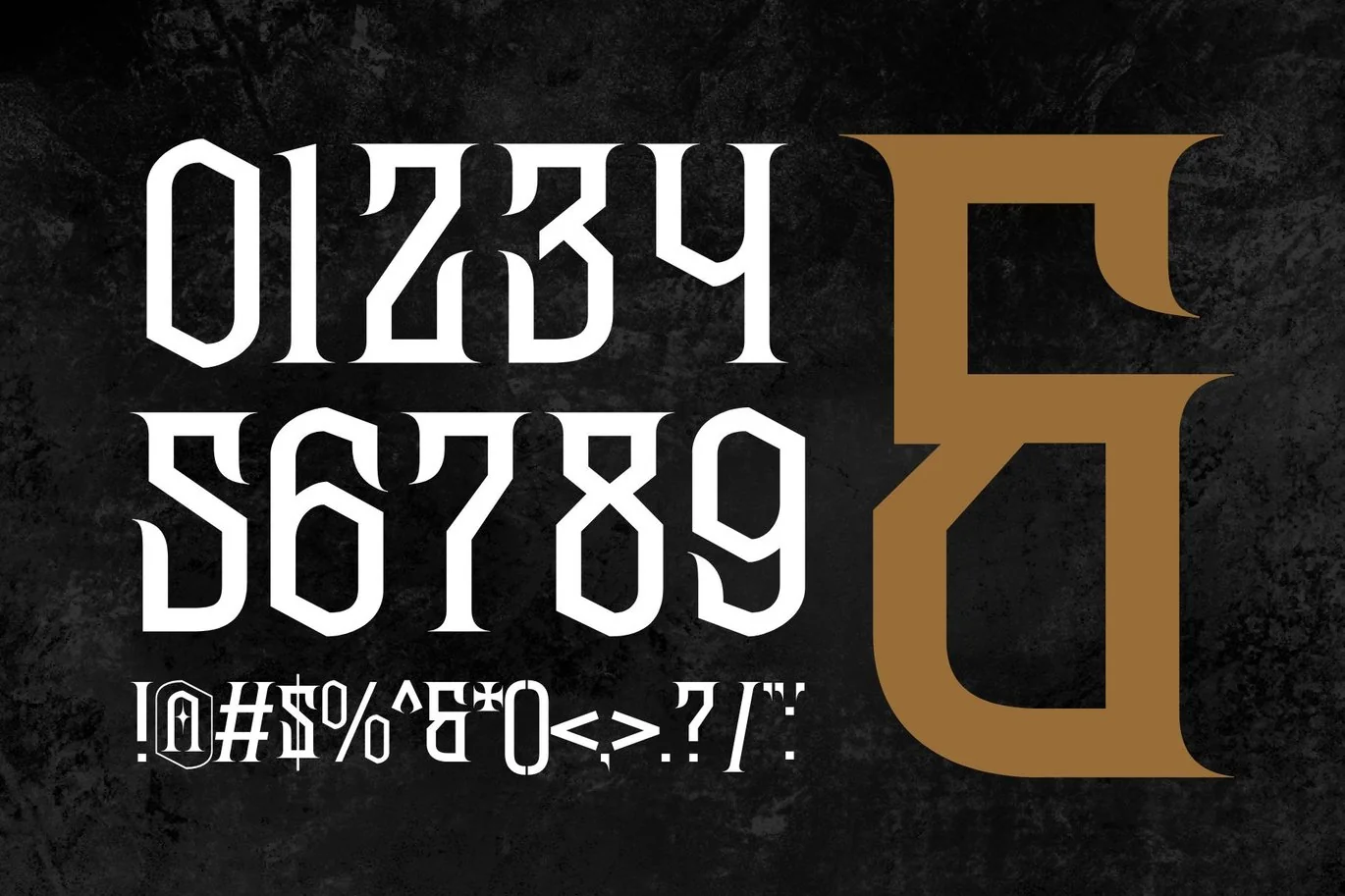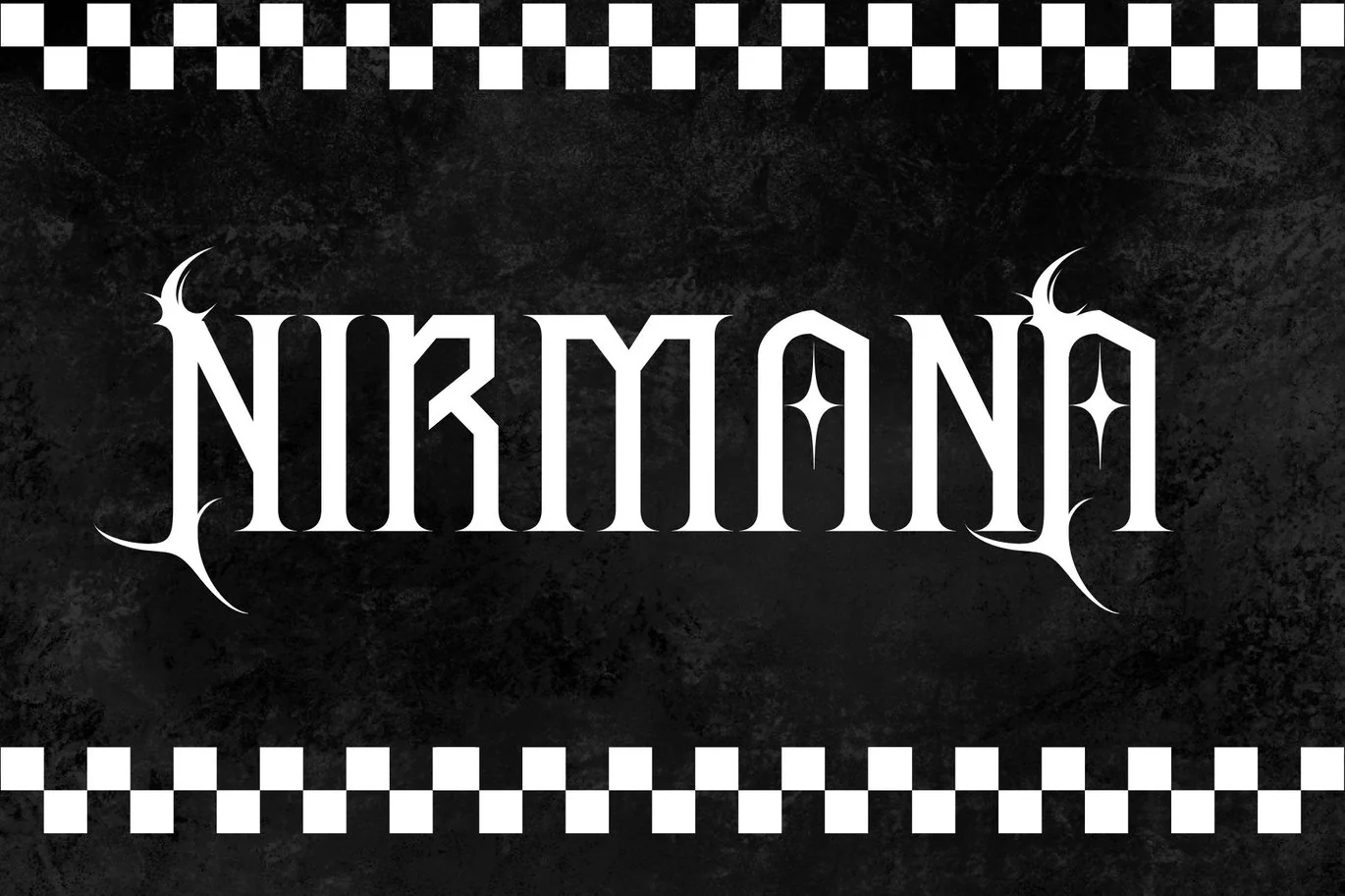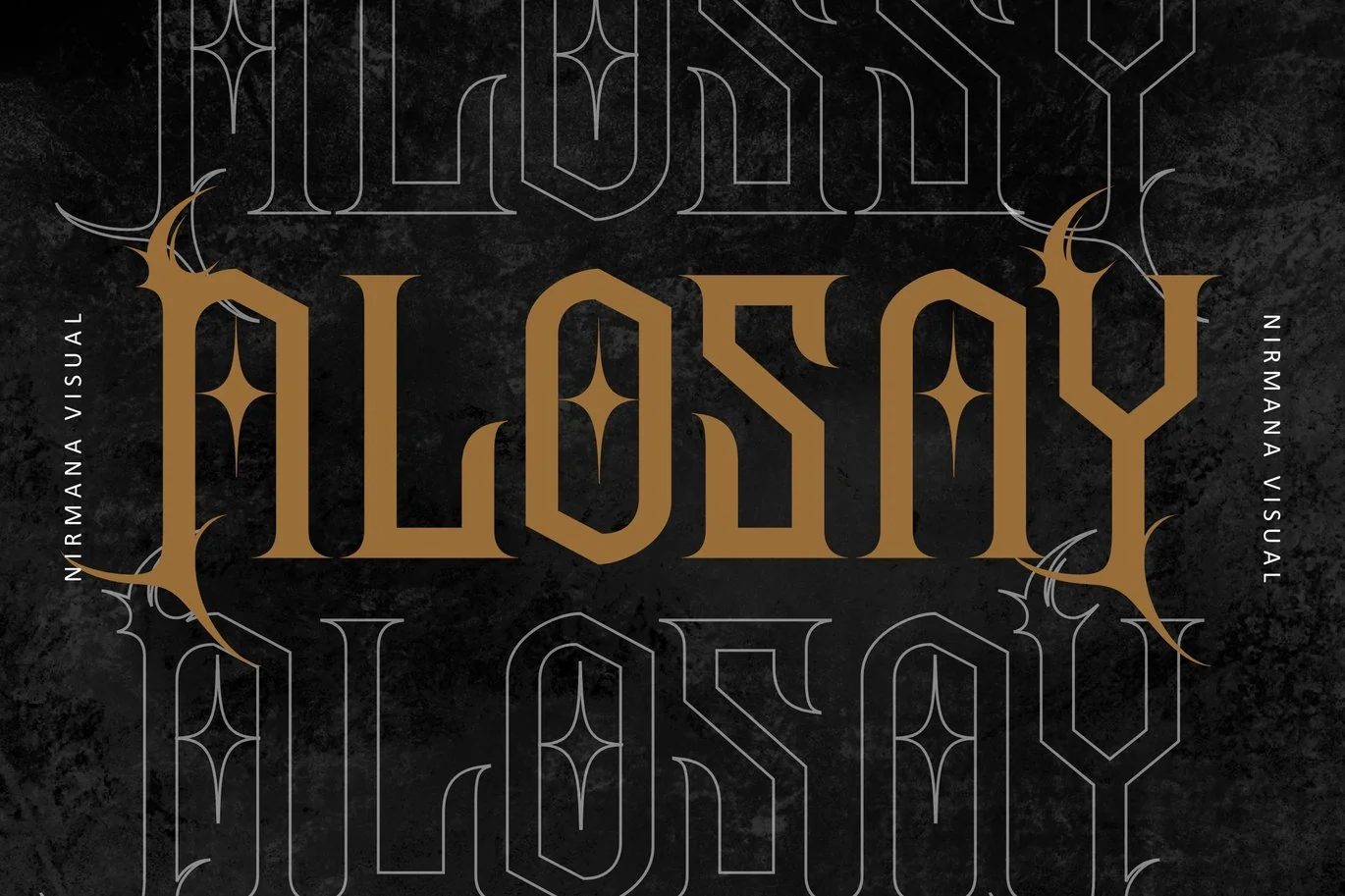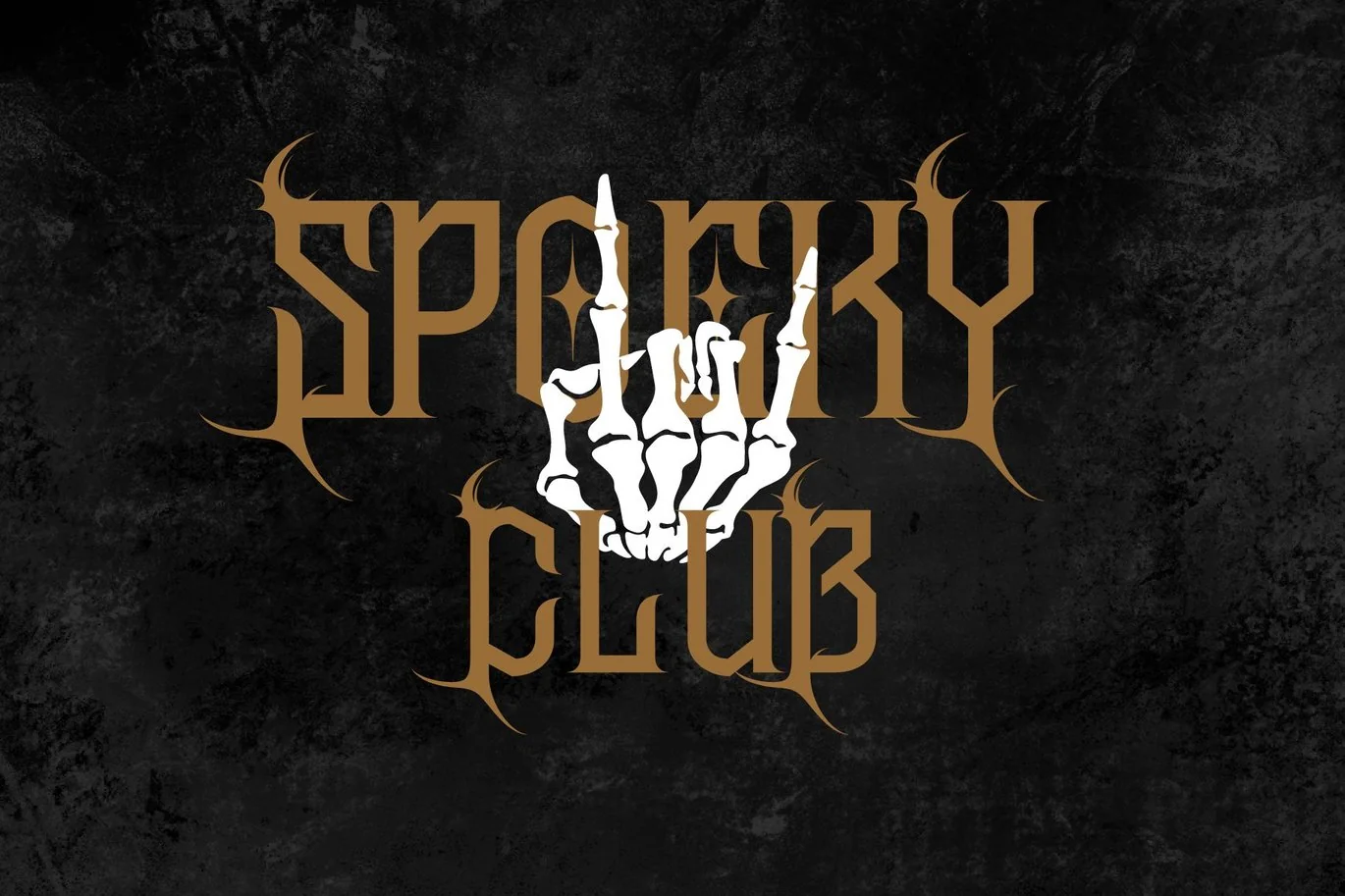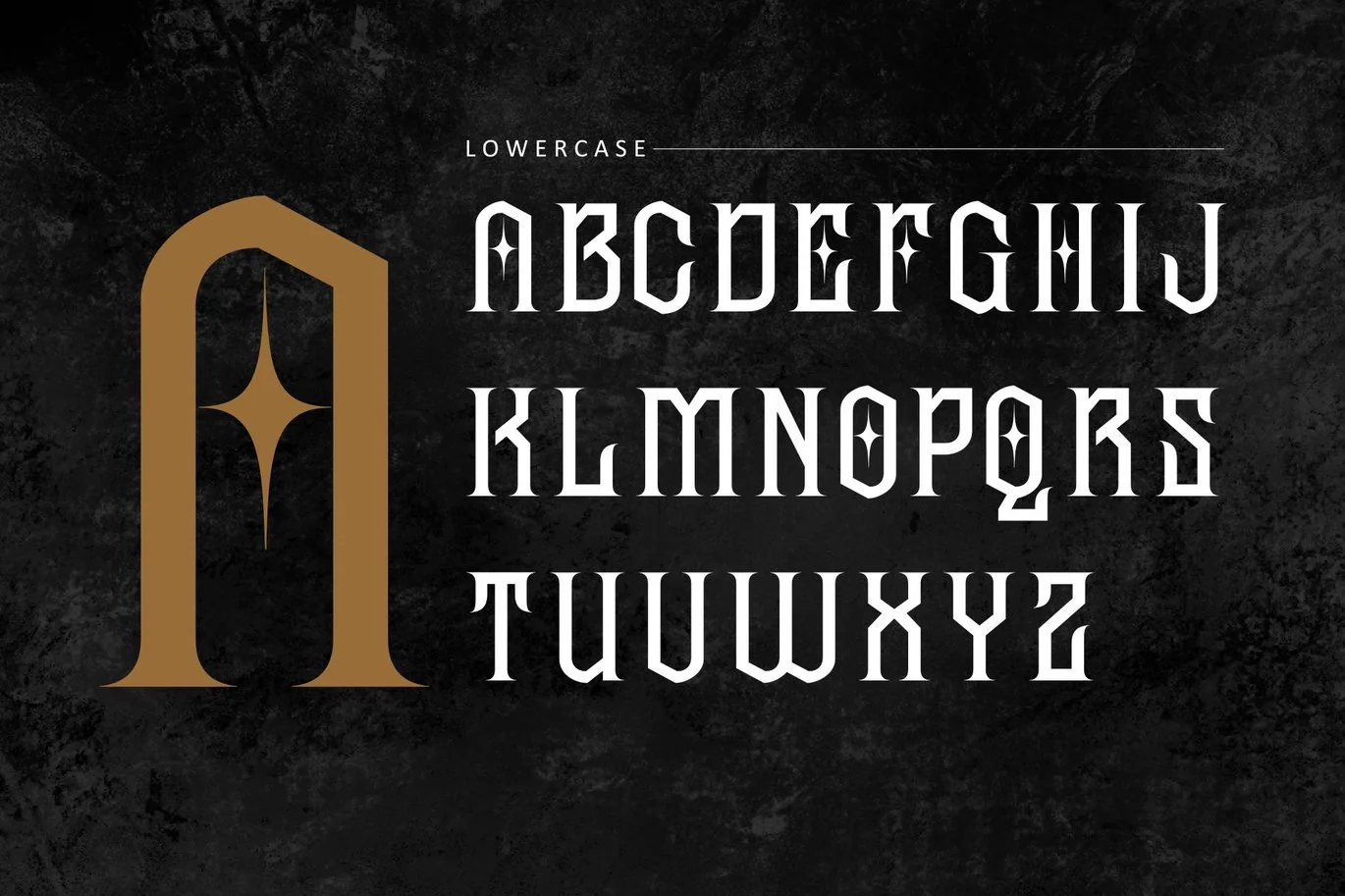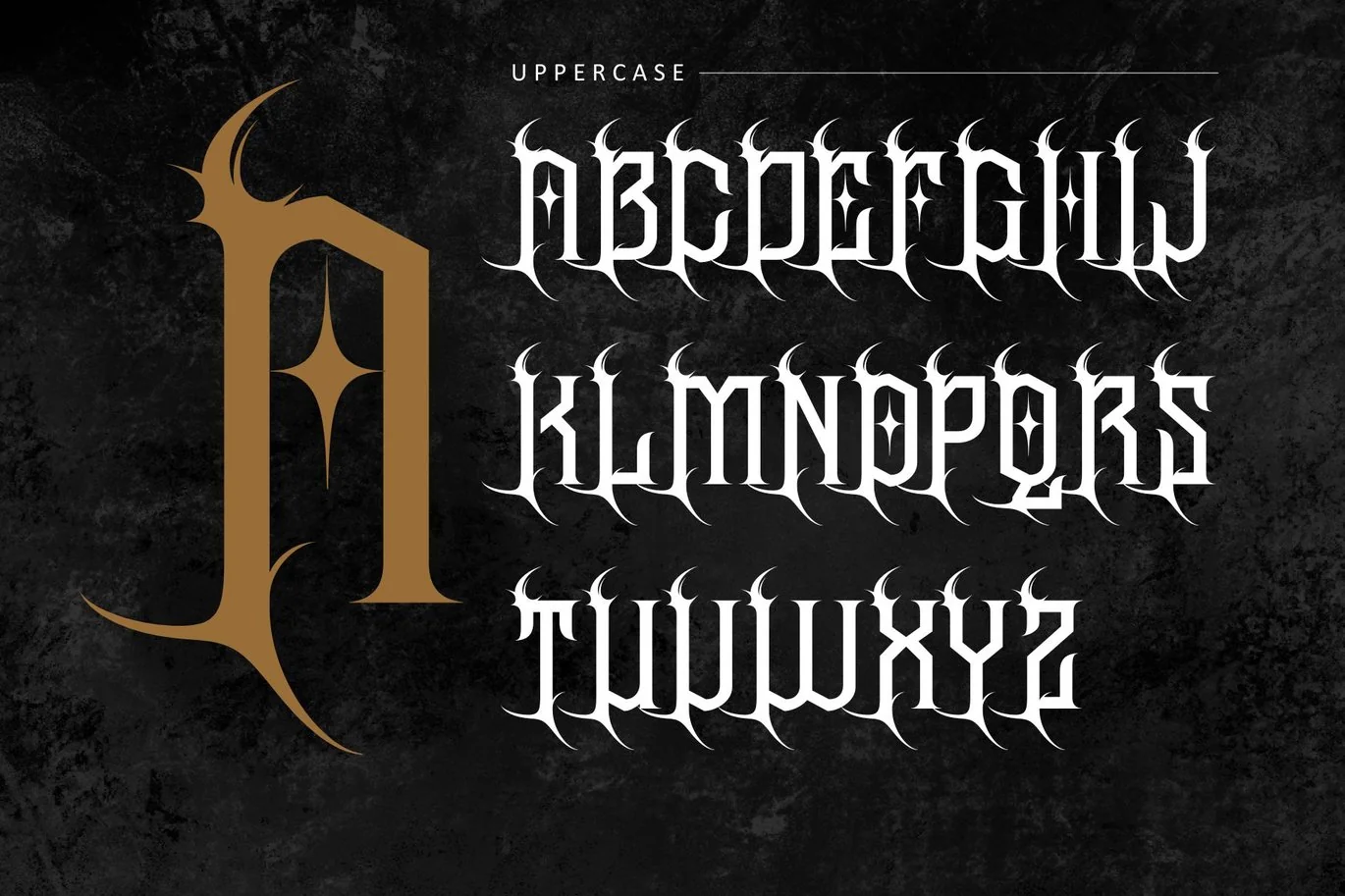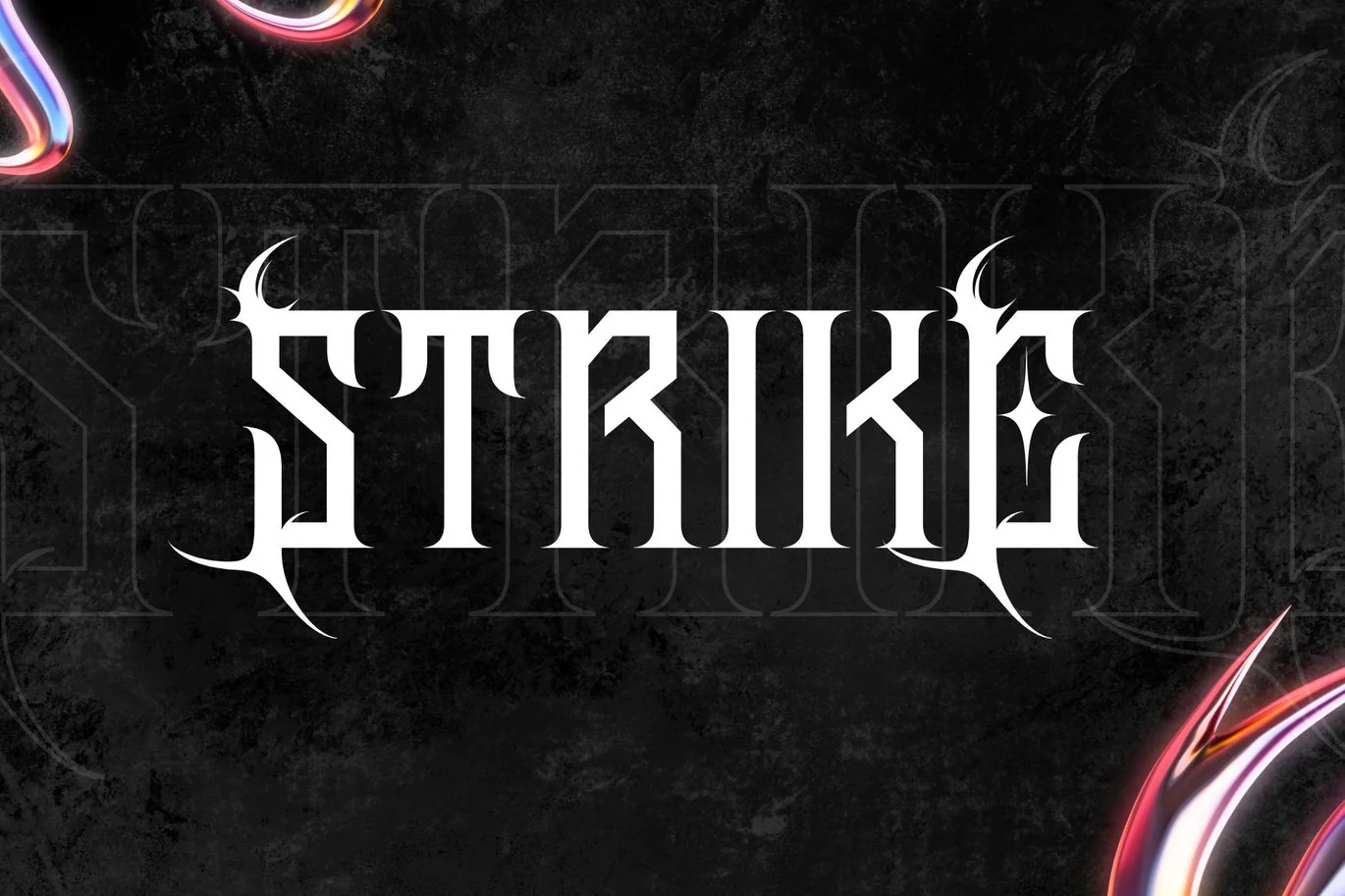
Alosay Gothic – Blackletter Fonts
Alosay Gothic offers beautiful typographic harmony for a diversity of design projects, including logos & branding, social media posts, advertisements & product designs.